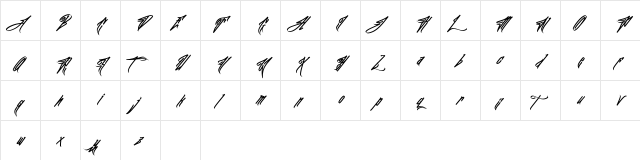
JFK Wall Hunter Demo Juan Jeje JFK Font
| Foundry | JFK |
| Designer | Juan Jeje |
Design Context for JFK Wall Hunter Demo Juan Jeje Typeface
JFK Wall Hunter Demo Juan Jeje is a composed and adaptable typeface that performs quietly and consistently across a wide range of design contexts.